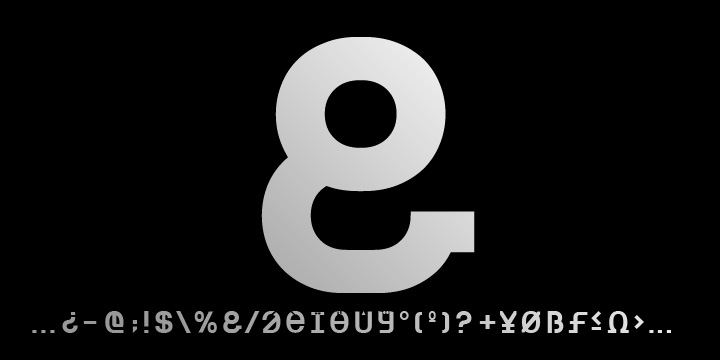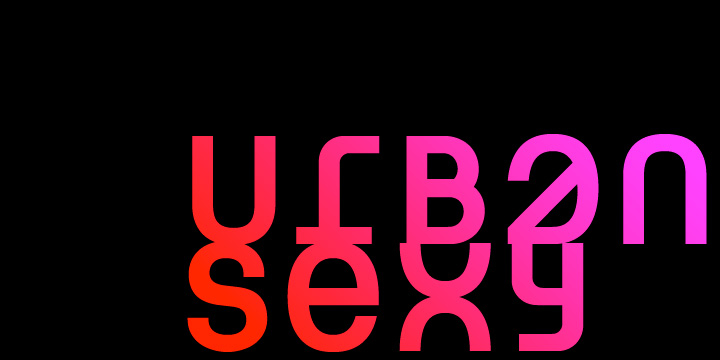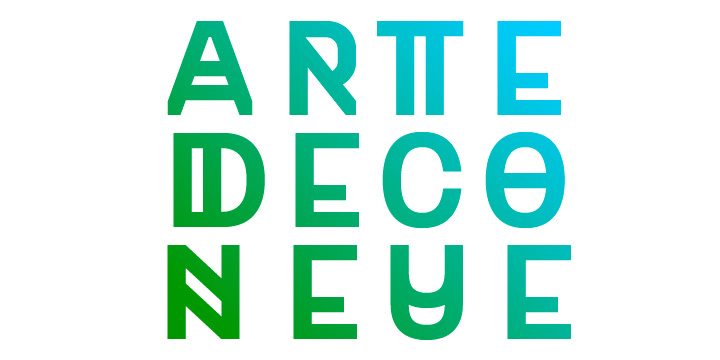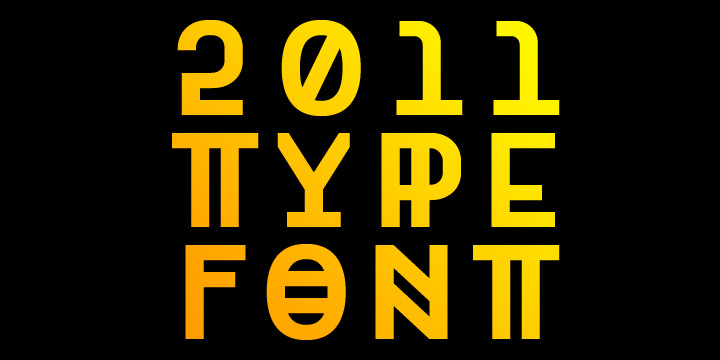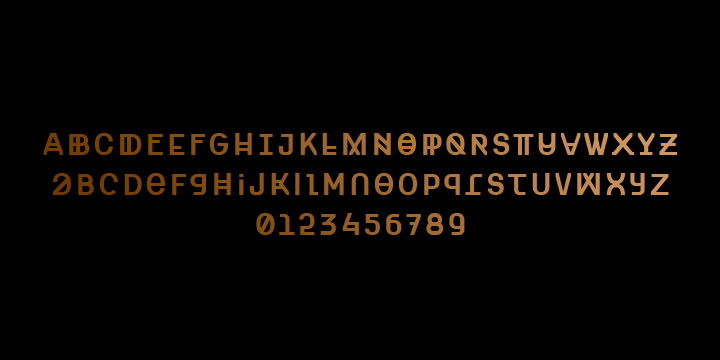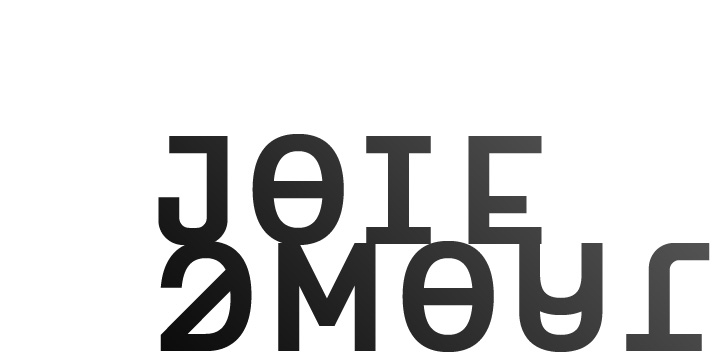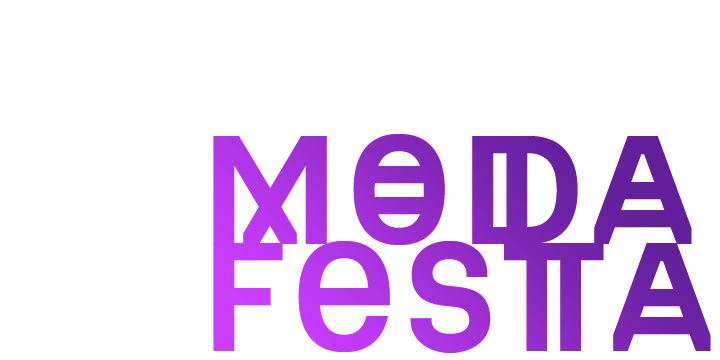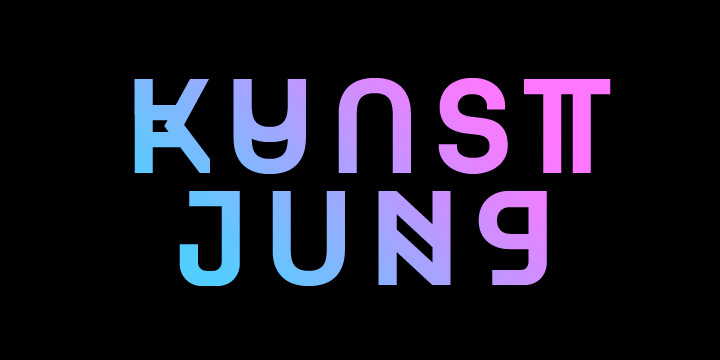
Designed by Pedro Mascarenhas, Art Deco Neue is a art deco font published by MOM.
ArtDeco Neue was designed in 2011 to give a strong characteristic to the titles of the Portuguese Art Magazine. From classic sans fonts (usually used by artists and galleries) this font developed with the double geometric lines of Art Deco architecture creating a contemporary design. The final result of each word depends on the choices the designer makes for each glyph.